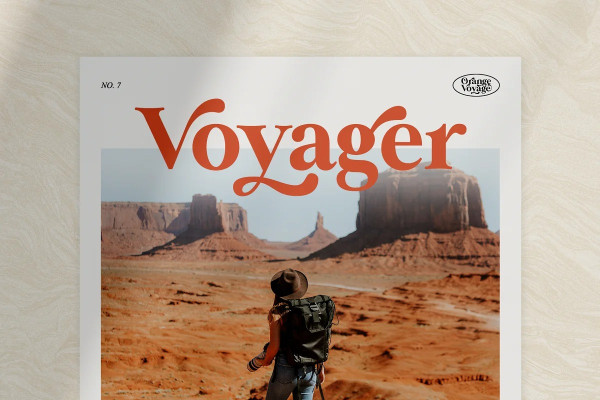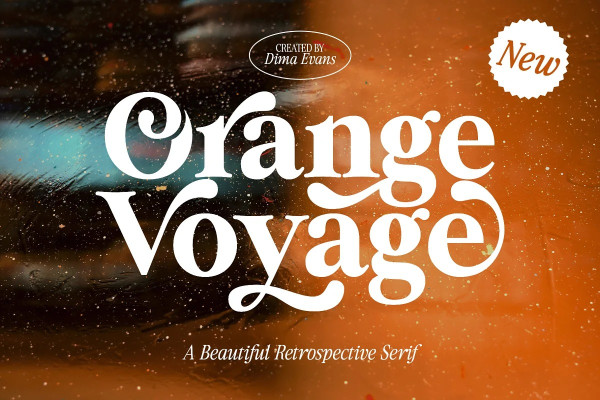
Orange Voyage Font
Orange Voyage Font is a modern serif with vintage charm, fashionable appearance with a touch of retro
Font is an open type with clean shapes and precise kerning.